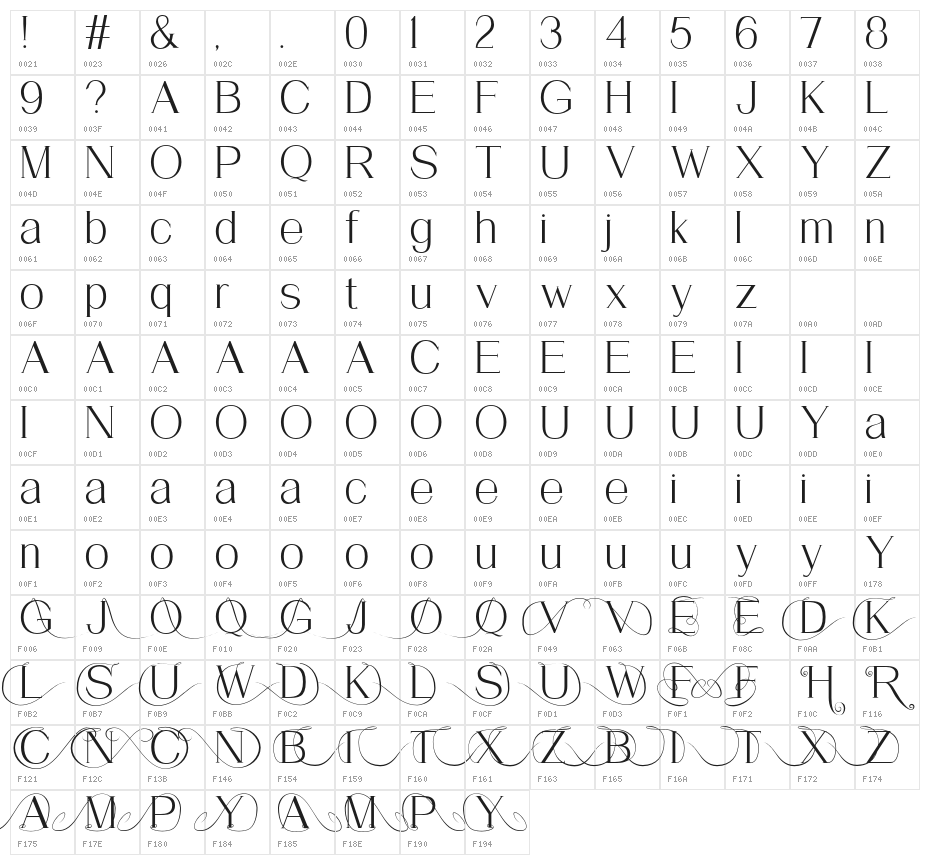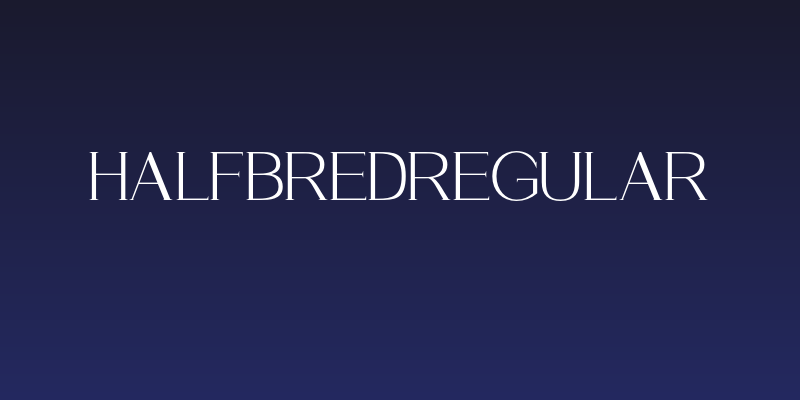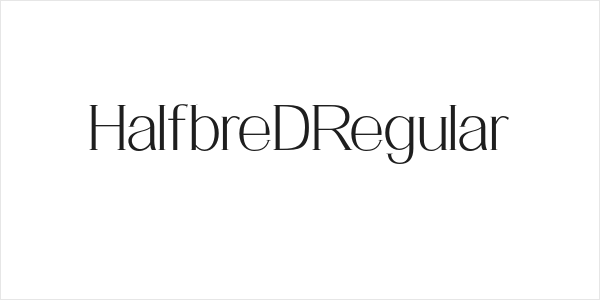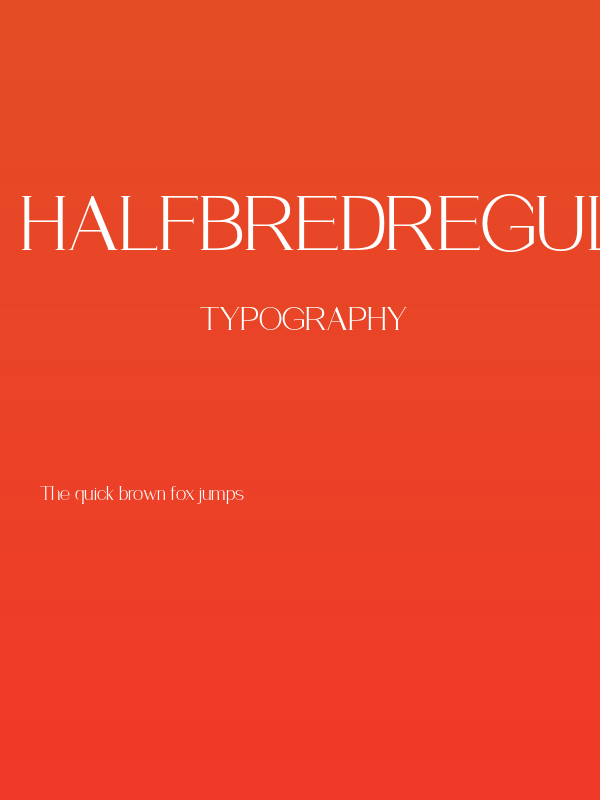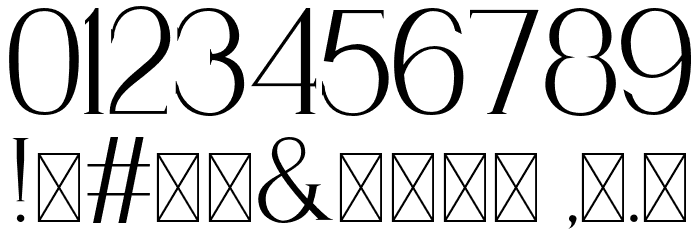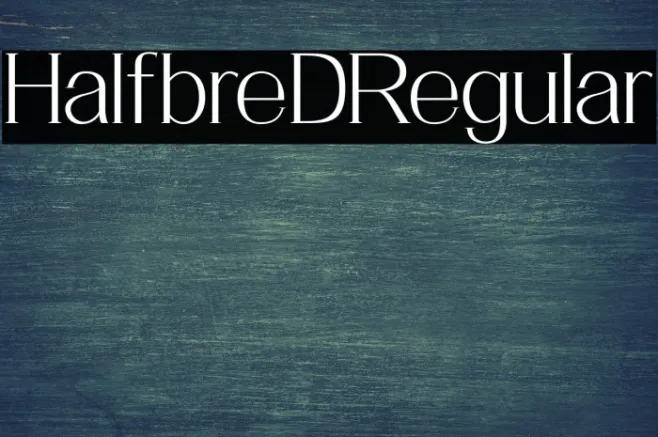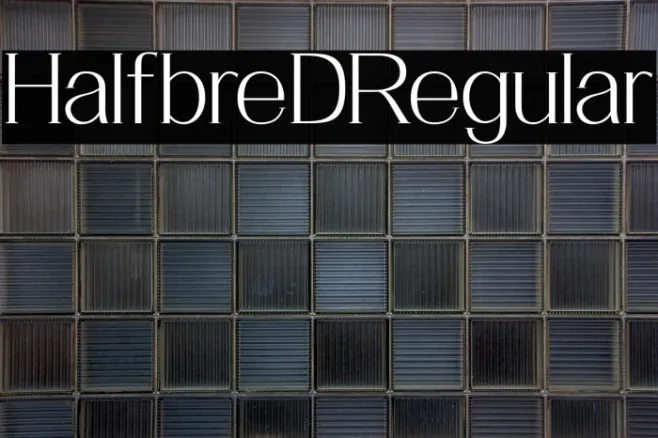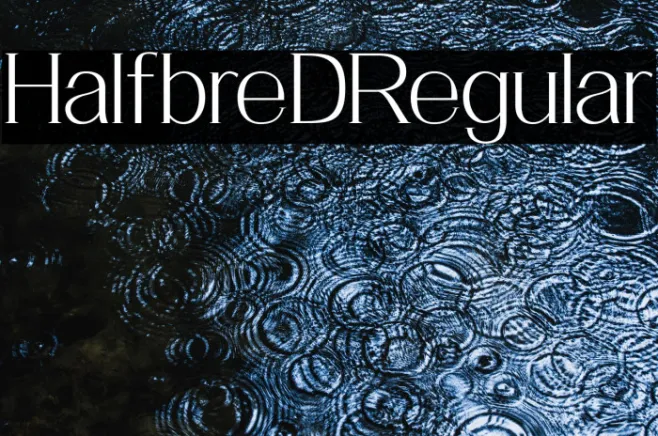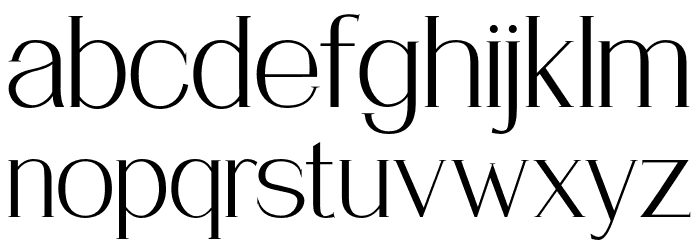
HalfbreDRegular Font
HalfbreDRegular Description
This font features a modern and elegant design with clean, sharp lines and a high contrast between thick and thin strokes. The uppercase letters are tall and sophisticated, while the lowercase letters maintain a consistent style that complements the overall aesthetic. The numerals are proportionate and blend seamlessly with the alphabet, making it versatile for various applications. The special characters are distinct and well-defined, adding to the font's versatility. Its refined appearance makes it suitable for both digital and print media, offering a professional and polished look.
| Use Case | Headlines, Logos, Editorial design |
| Proposed Projects | Ideal for branding, editorial design, luxury packaging, and high-end fashion magazines. |